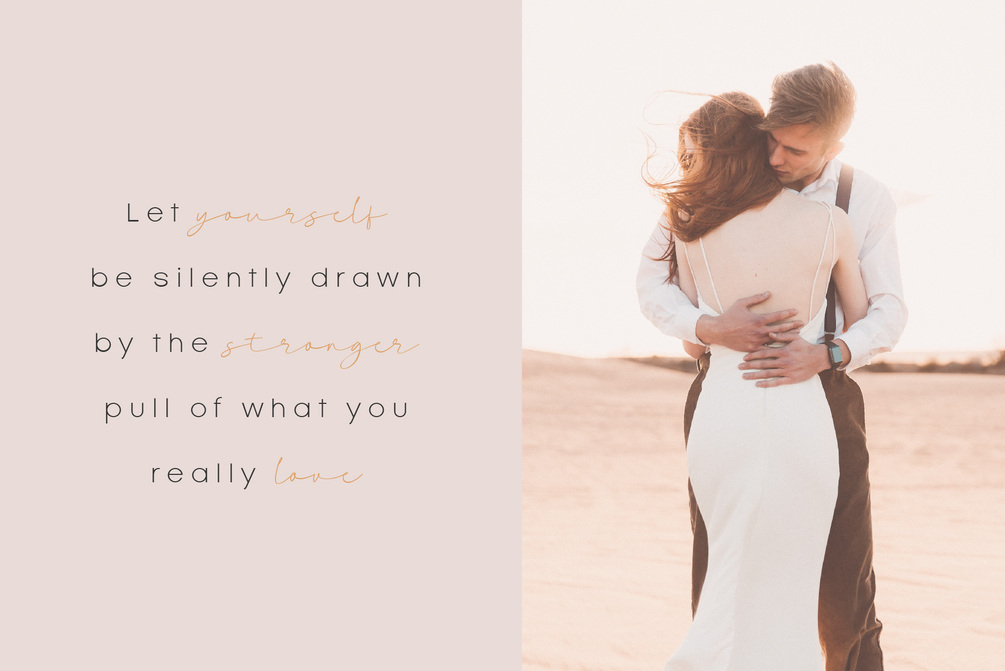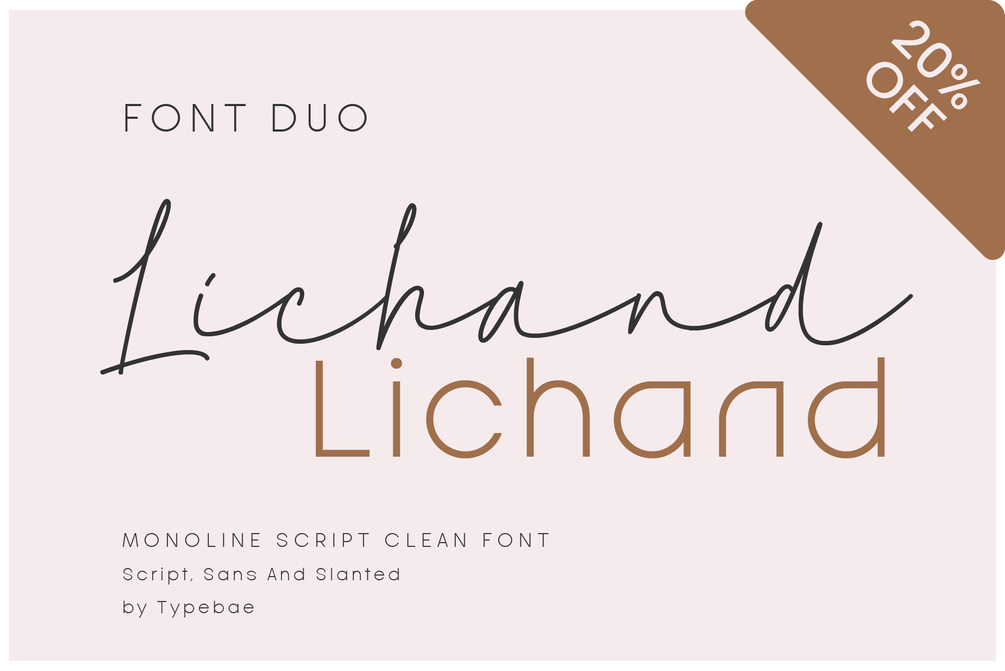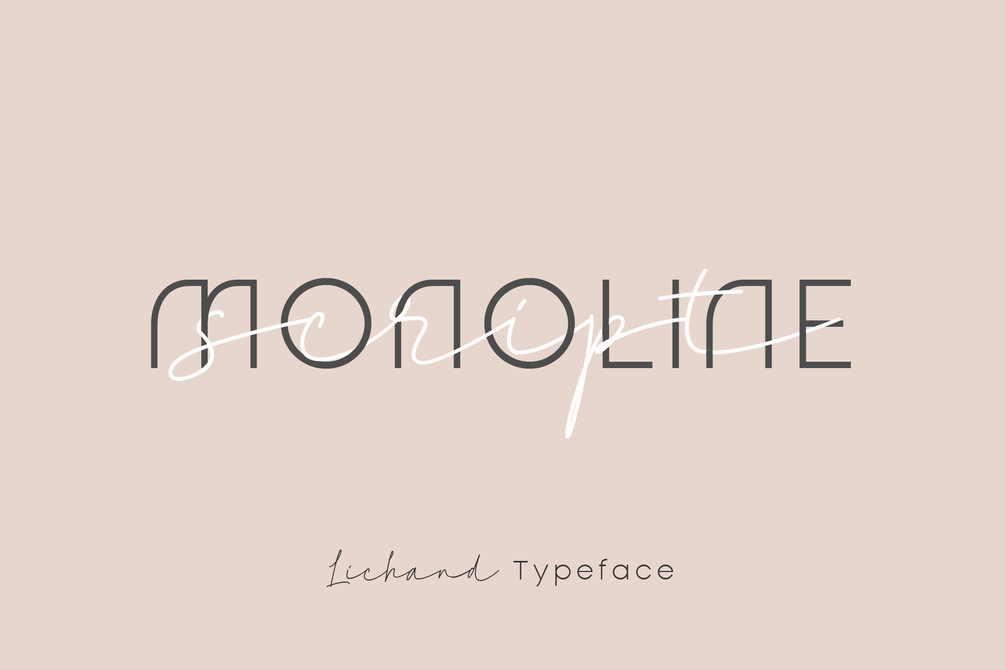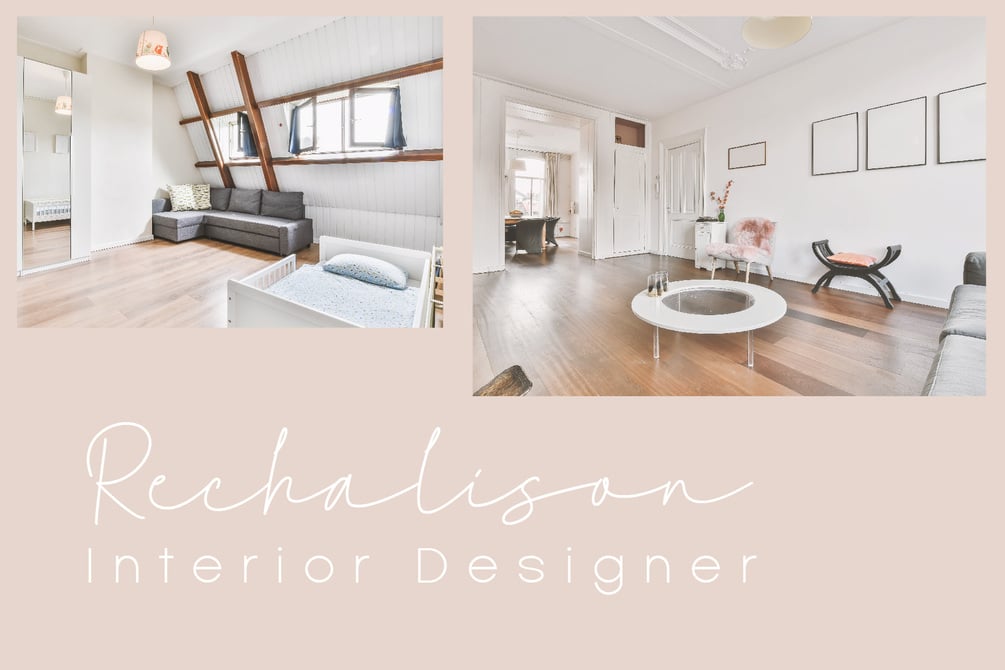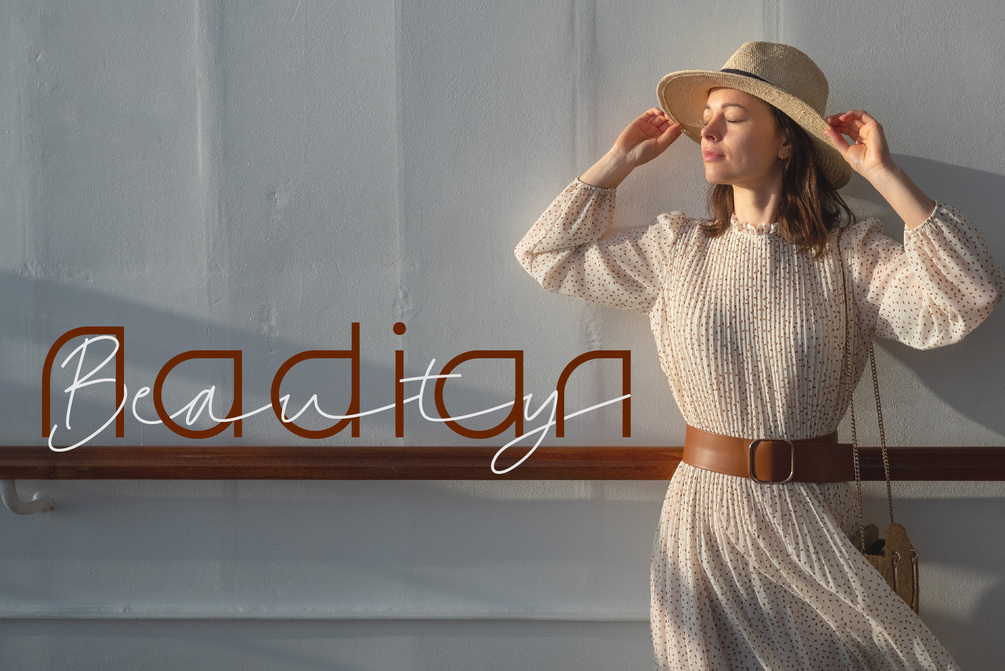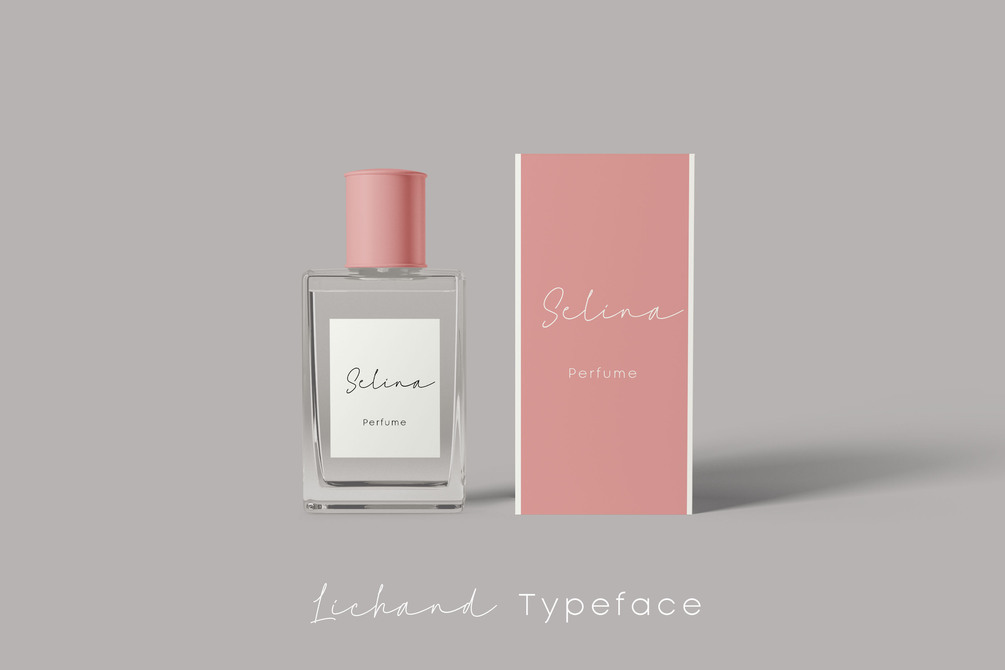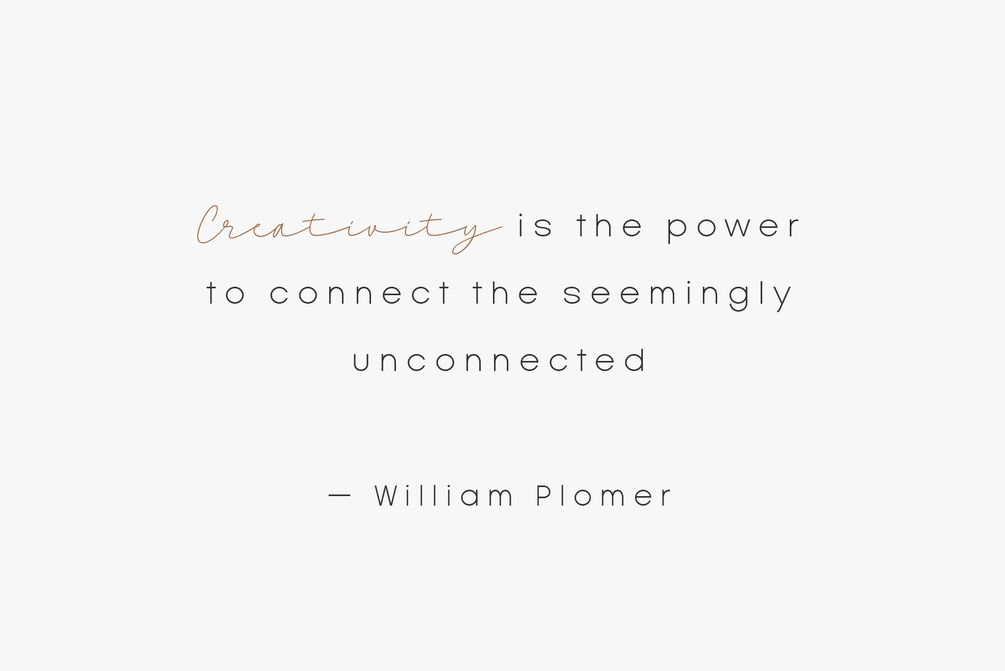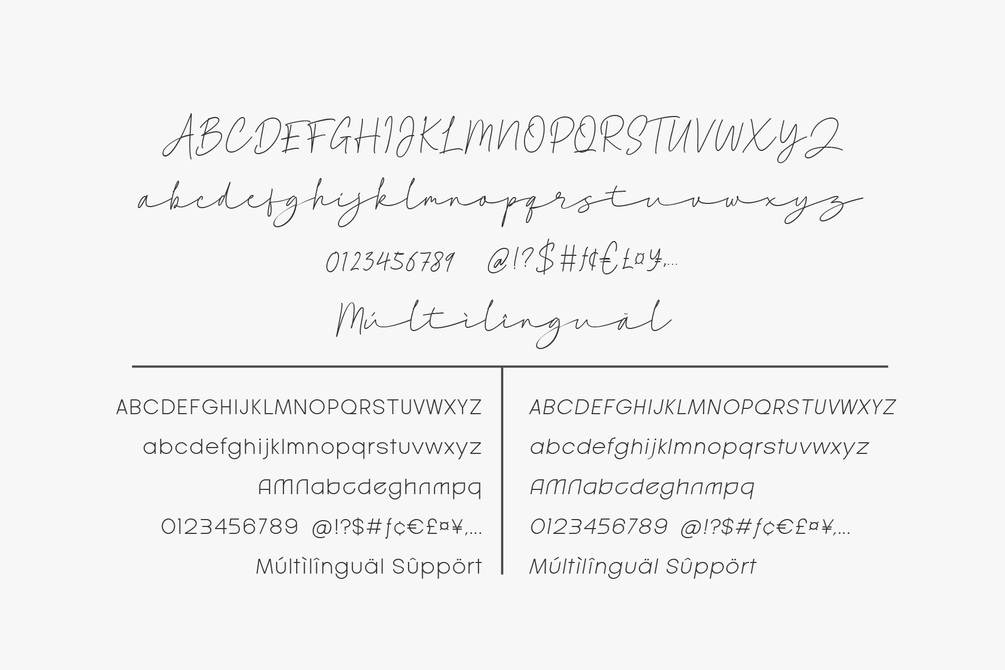
Lichand Font Duo
Lichand is handwritten monoline script font and sans serif.
Features
- Full Set of standard alphabet and punctuation
- Stylistic alternates
- Multilingual Characters